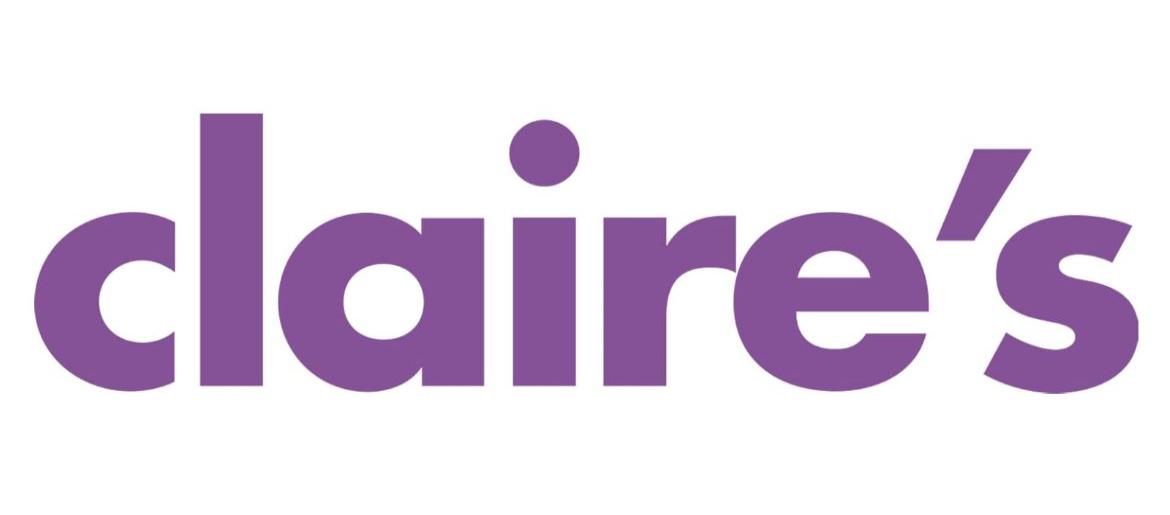
Claire’s Font
What is The Font Of claire’s?
Claire’s Font reflects the fun, youthful, and fashion-forward personality of the popular accessories and jewelry brand. The logo uses Futura Paneuropean Bold, a clean geometric sans-serif font that perfectly conveys modernity and confidence. Its bold shapes and balanced proportions make it instantly recognizable, representing the brand’s energy and approachable style. While it’s a premium typeface, we’ve found a free alternative that closely matches its look, making it perfect for playful, trend-inspired designs.